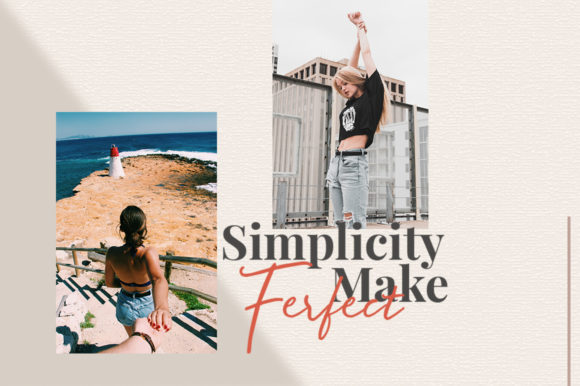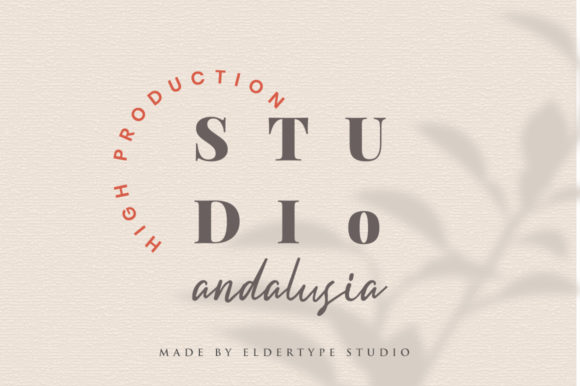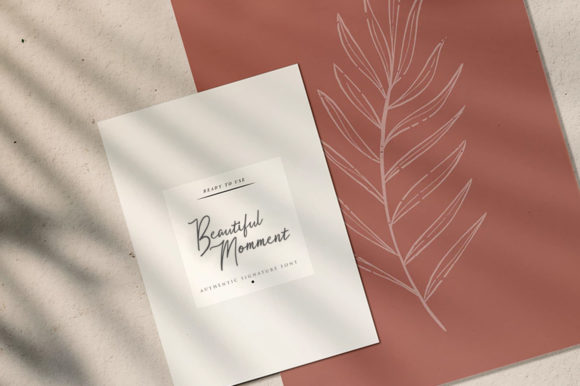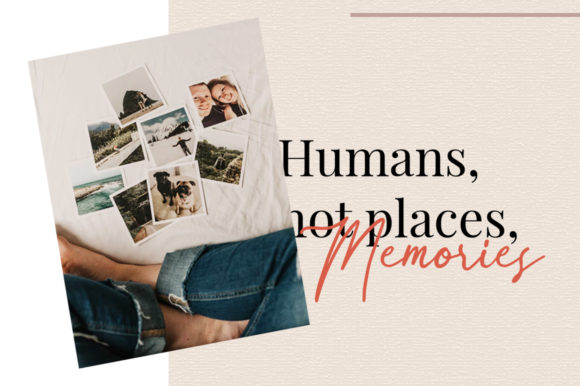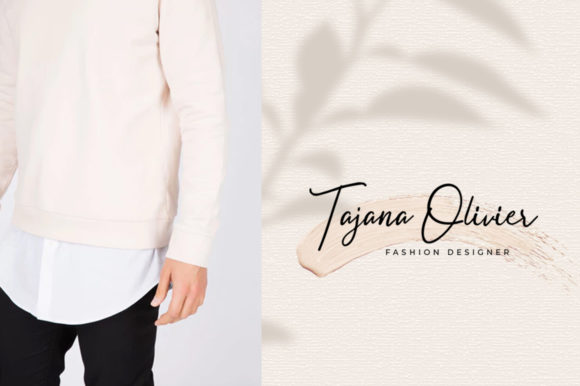
Acelire Rosse Font
About Acelire Rosse Font
Acelire Rosse is a unique and charming handwritten font with beautiful elements. It will add an authentic twist on any design idea.